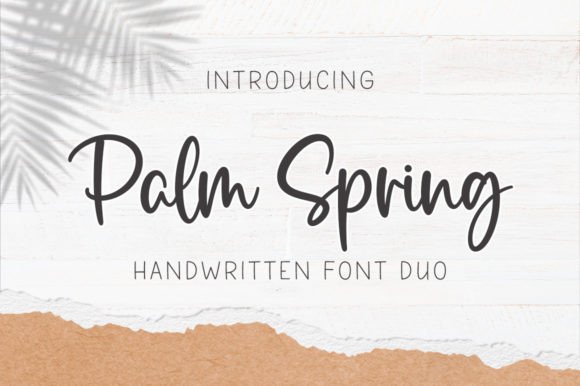
Behold, the Palm Spring Font, a duo of remarkable script and sans fonts, crafted to be the epitome of sophistication and delight. This typographic gem is the brainchild of Graphix Line Studio, renowned for their artistic flair in creating fonts that resonate with hearts and minds.
The Palm Spring Font duo exudes an air of elegance and exuberance, making it the perfect companion for those seeking a font that reflects their vibrant spirit. Its script variant dances across the page like a graceful ballerina, its curves and flourishes adding a touch of whimsy and charm to your designs. The sans serif counterpart, with its clean lines and confident strokes, provides a solid foundation, ensuring readability and impact.
Imagine your brand adorned with the Palm Spring Font, its unique characters adding a dash of personality and warmth. This font family is not just a collection of letters; it's an expression of your brand's essence, a reflection of your creativity and passion. Whether you're designing logos, crafting social media posts, or creating eye-catching marketing materials, the Palm Spring Font will elevate your designs to new heights.
Step into a world of boundless creativity with the Palm Spring Font duo. Let your imagination soar as you explore the endless possibilities of this versatile font family. From delicate wedding invitations to bold and playful posters, the Palm Spring Font is your gateway to creating designs that captivate and inspire.